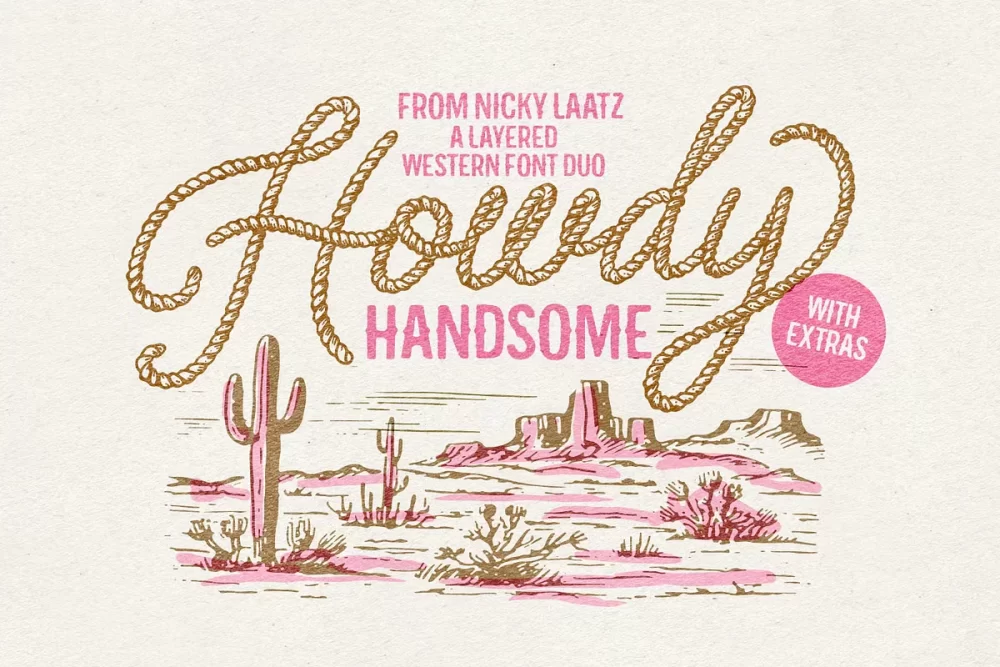
Say hello to Howdy is a layered western font duo with endless possibilities. A Splendiferous Rope Script, with 17 Layering/Style Options, it also has a large selection of Opentype alternate characters, ligatures and cowboy swashes to take your cowboy type to the next level. An Upright version which is less oblique is included too.
A Complimentary All-Caps Western Sans Serif with little median spurs, with 9 Layering/style options. A Slanted/oblique version is also included.